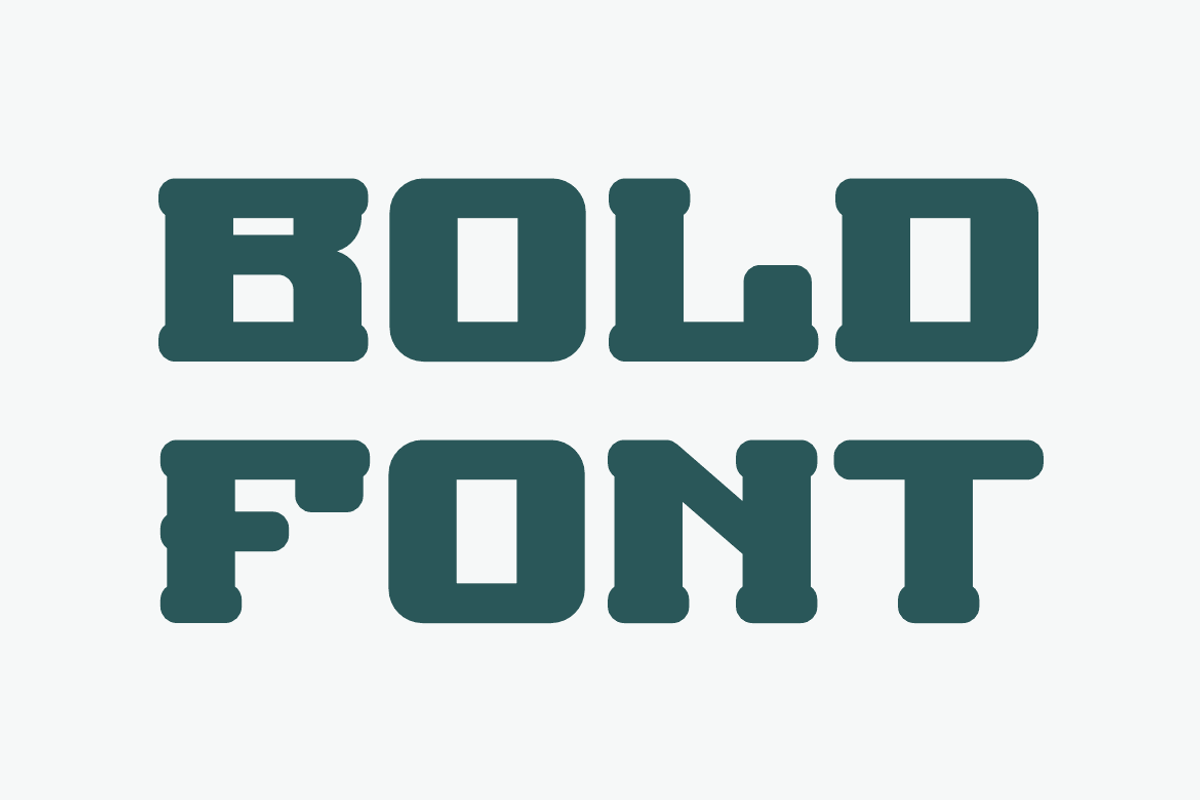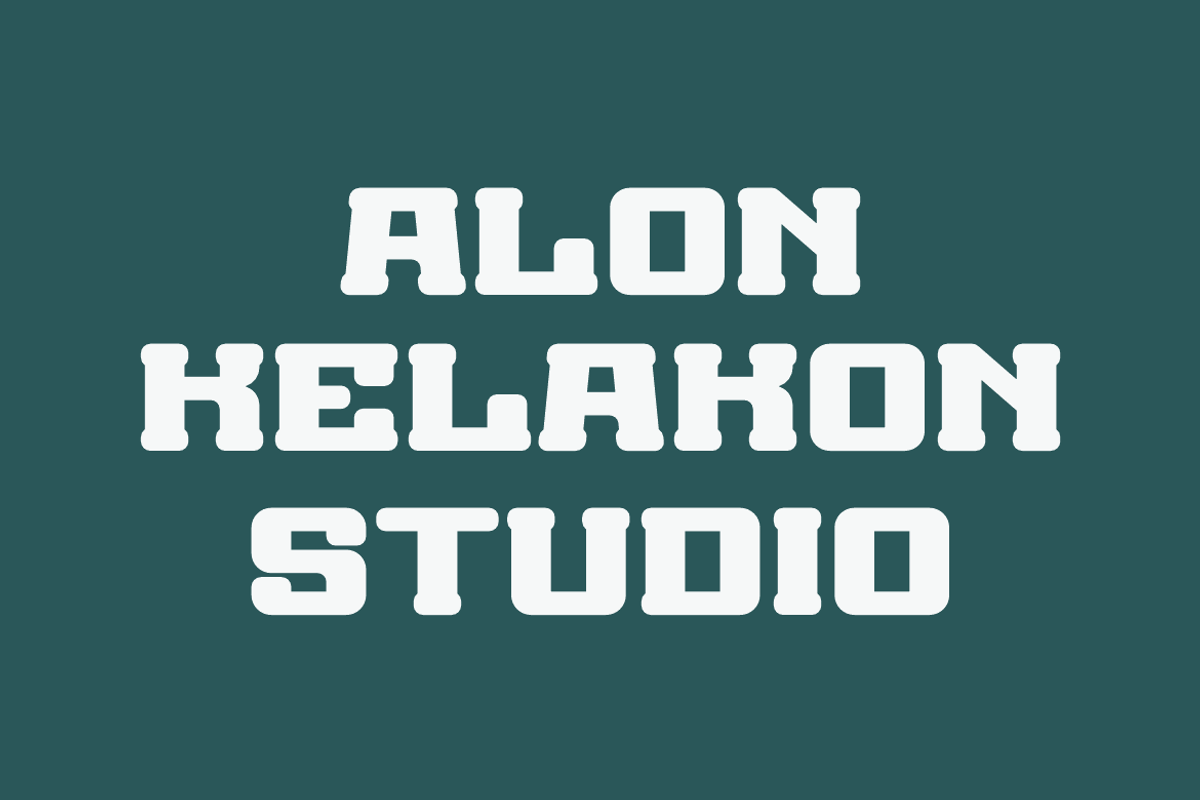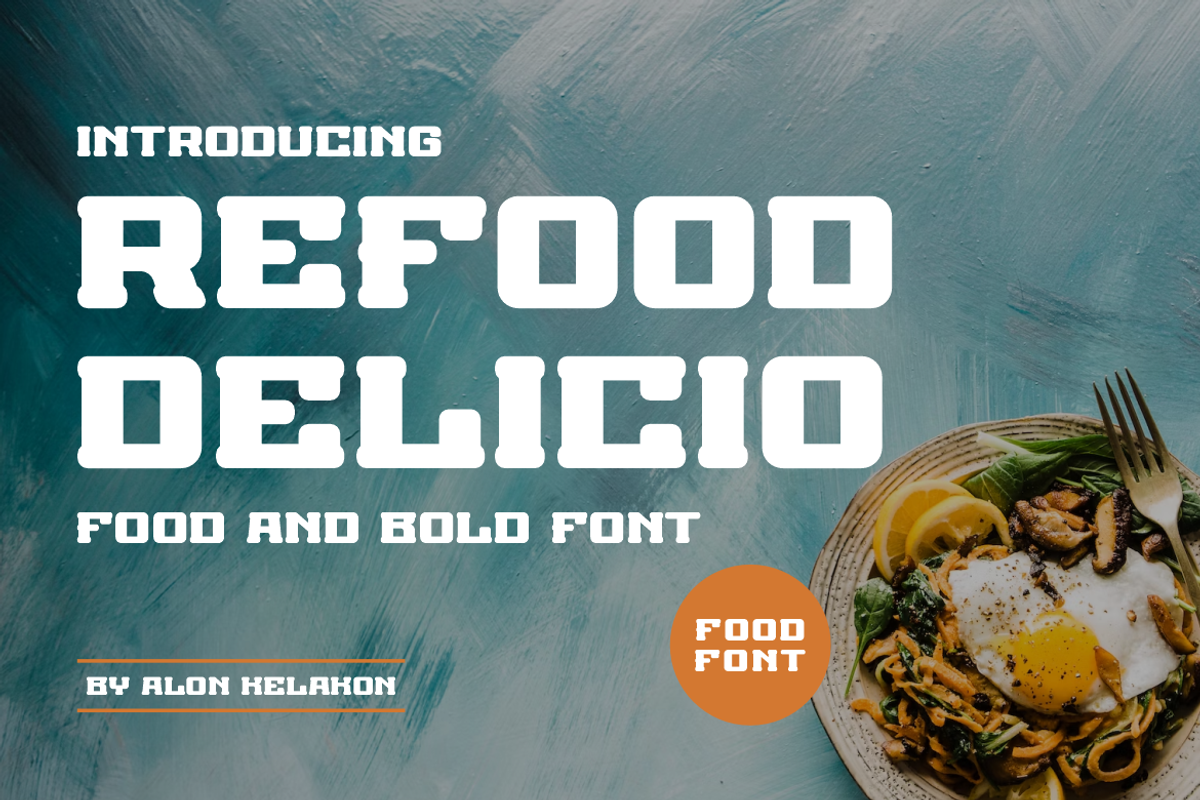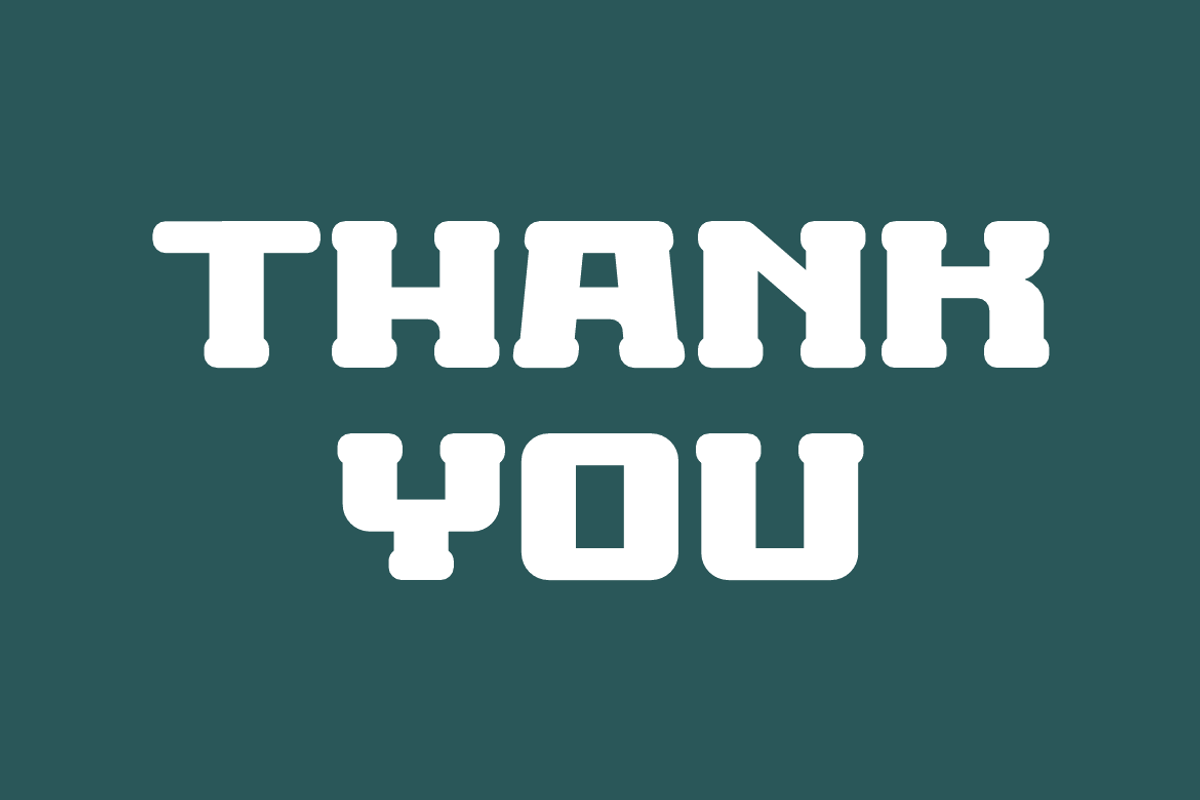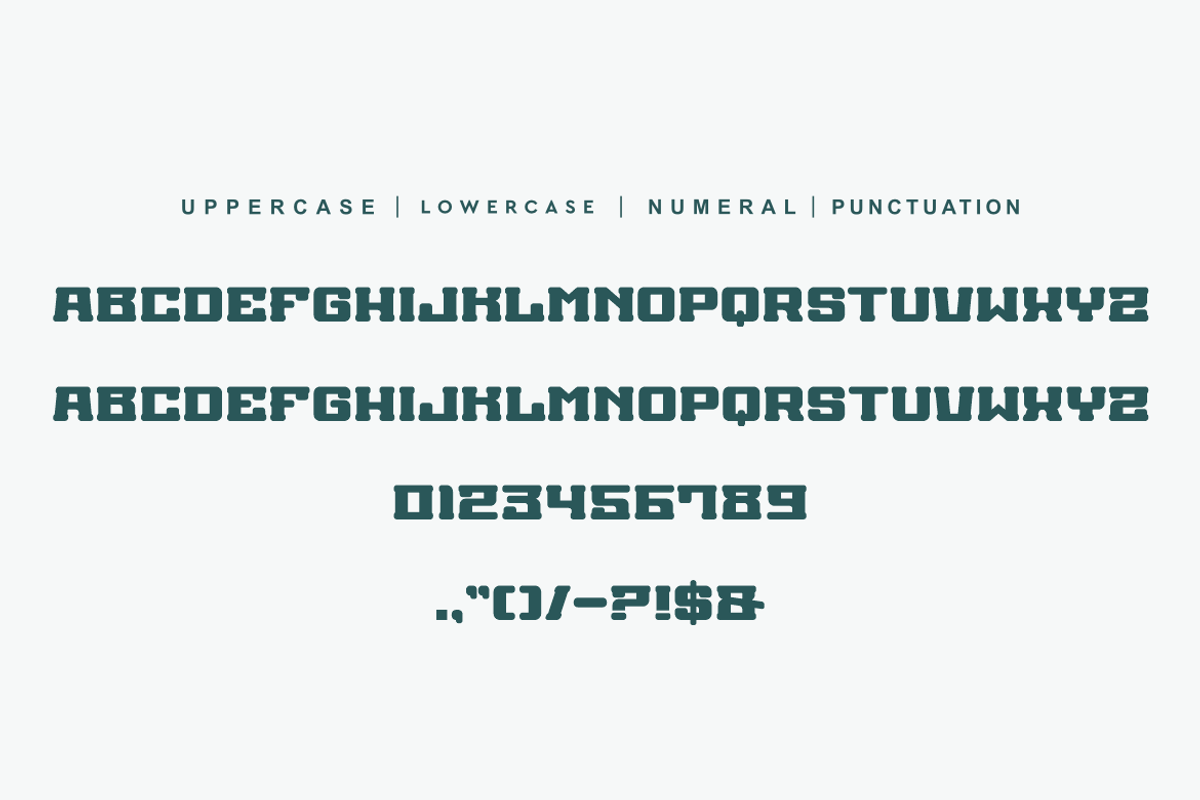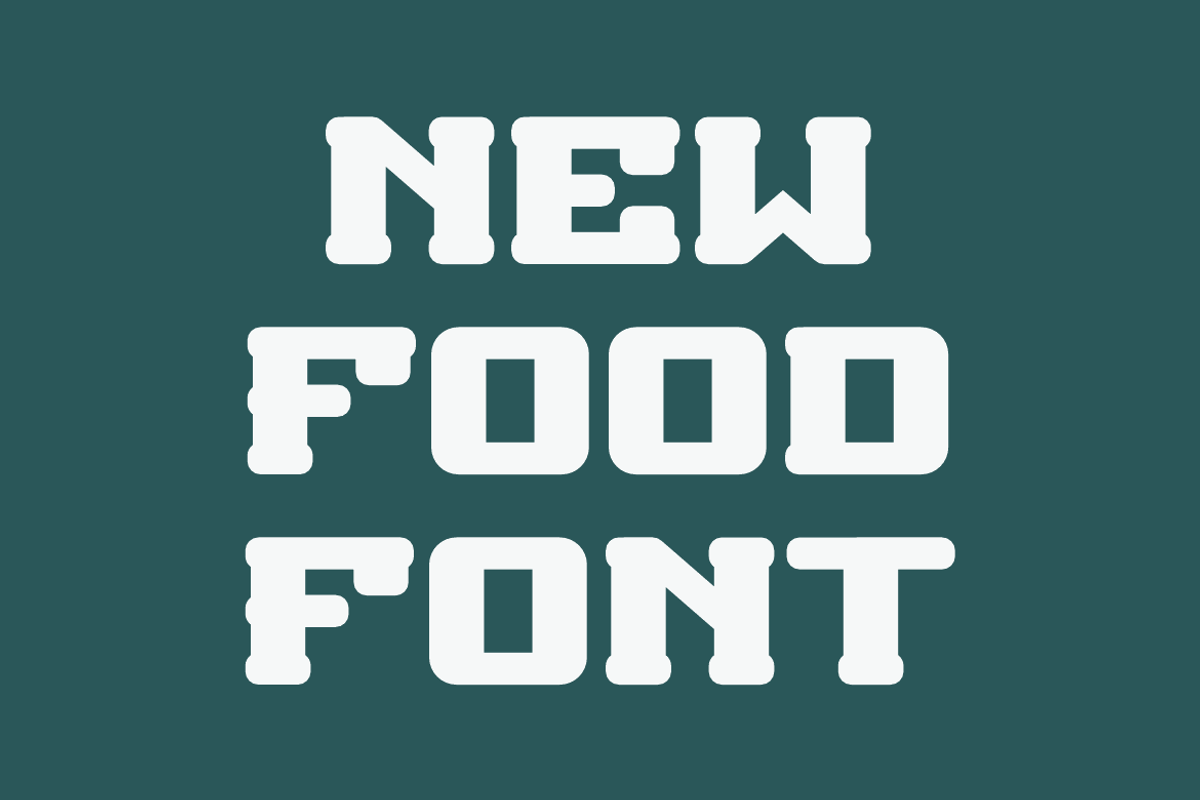
Refood Delicio
Refood Delicio Font is unique . Ready to use for your design like labeling, movie sceen, poster, movie title, gigs, album covers, logos, and much more.